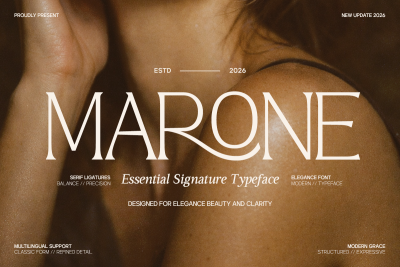
GC Marone - Elegant Essential Serif Font
GC Marone - Elegant Essential Serif is a thoughtfully constructed typeface that performs equally well in display and body text settings.